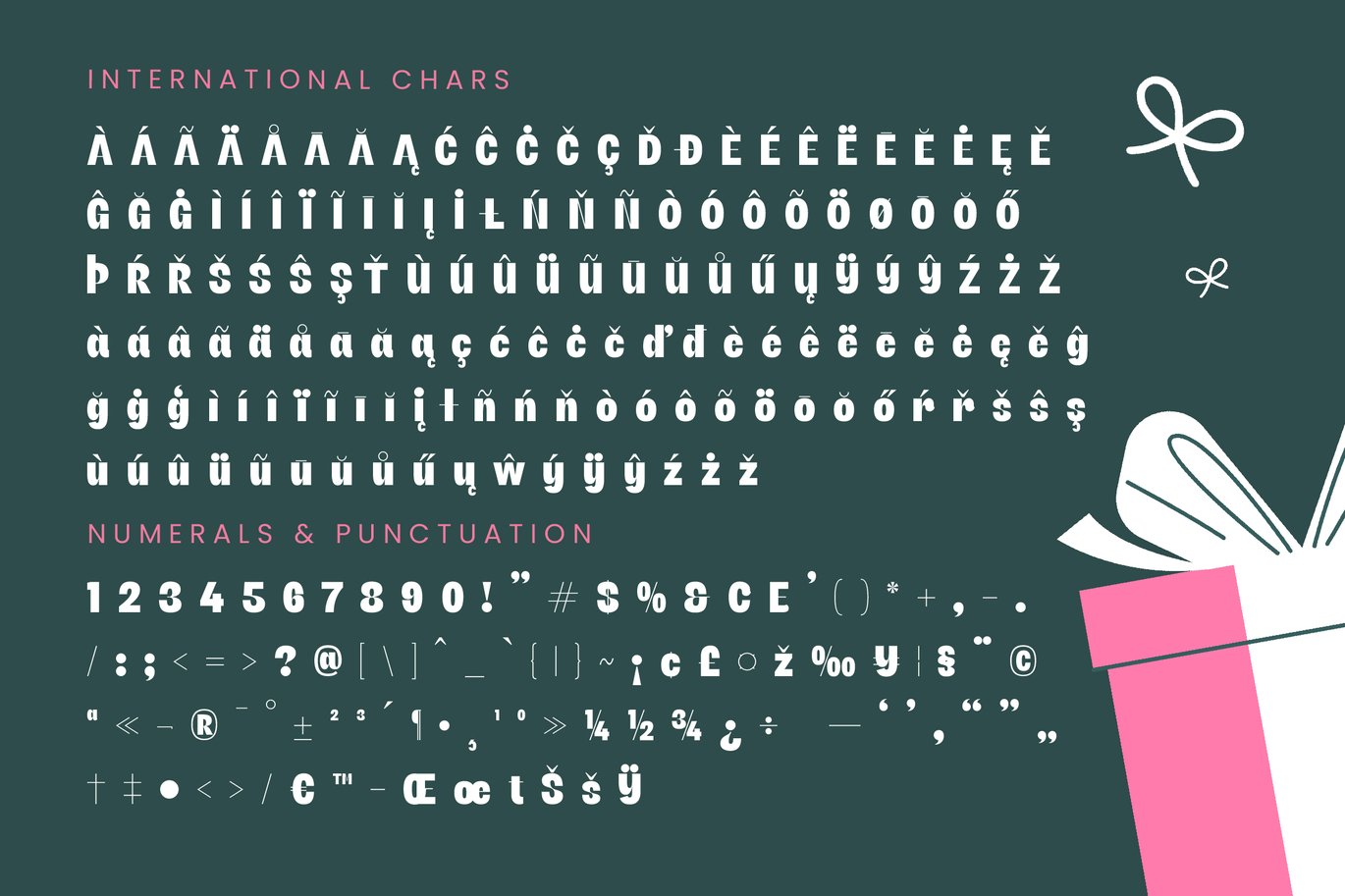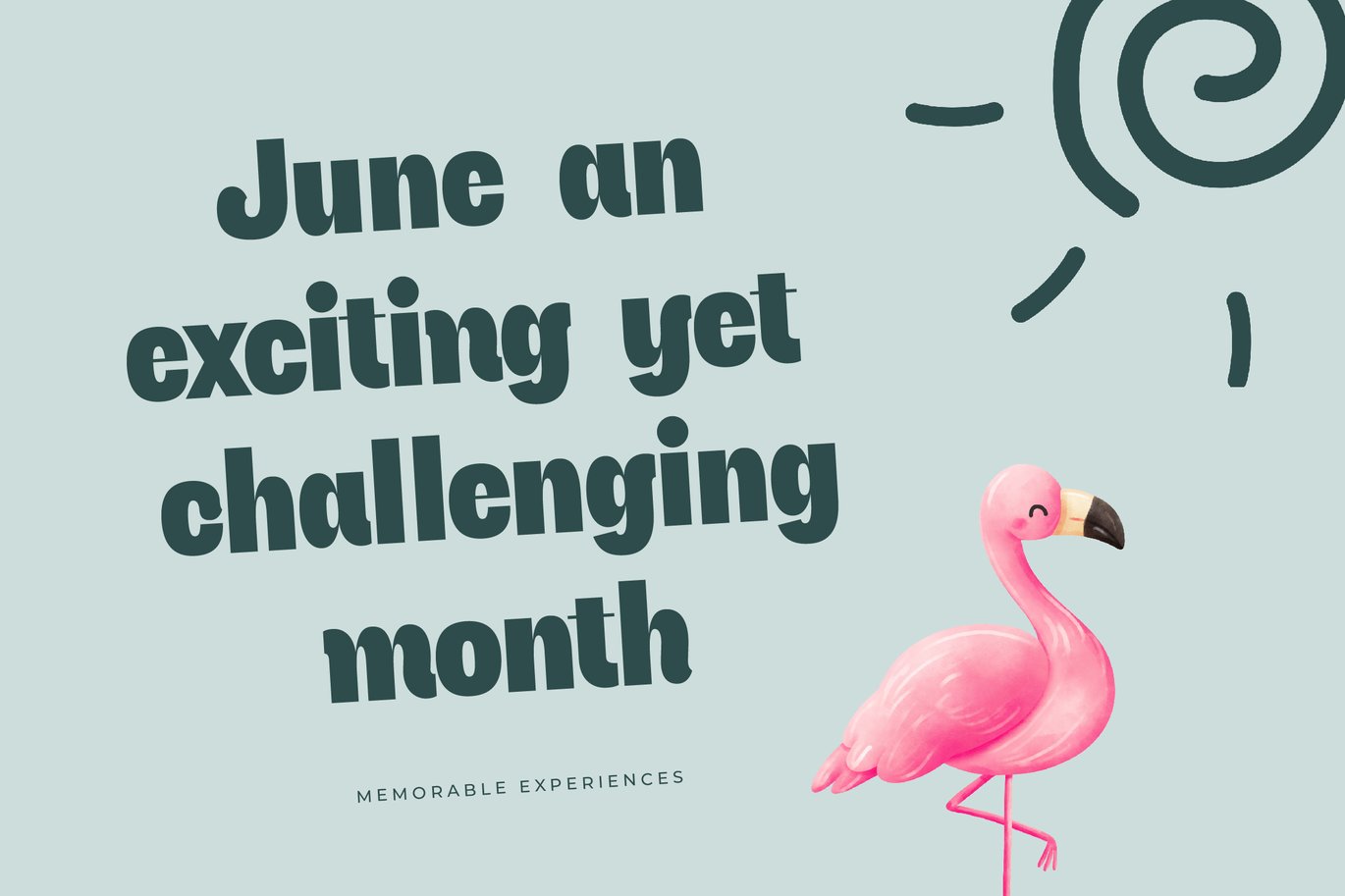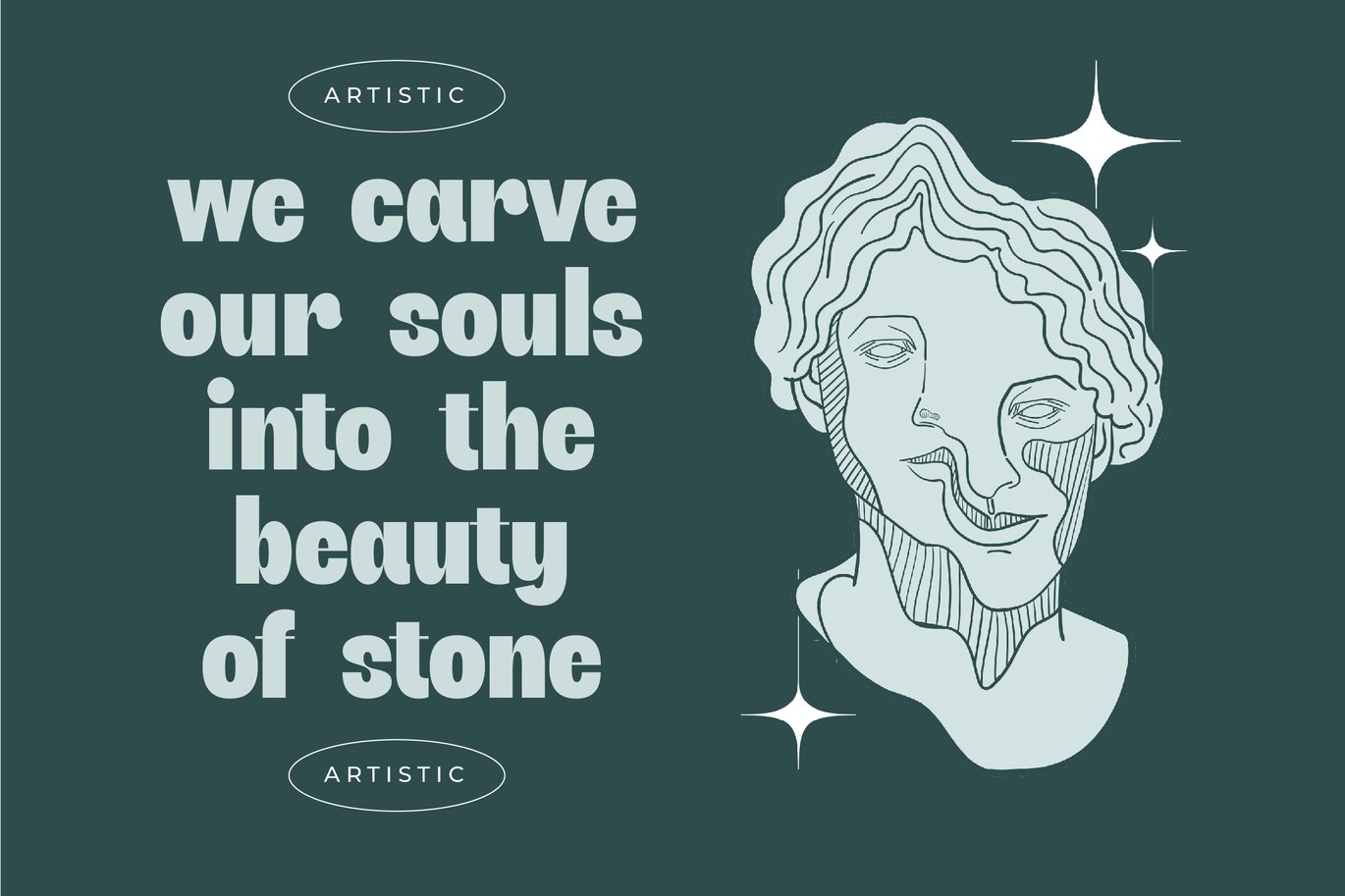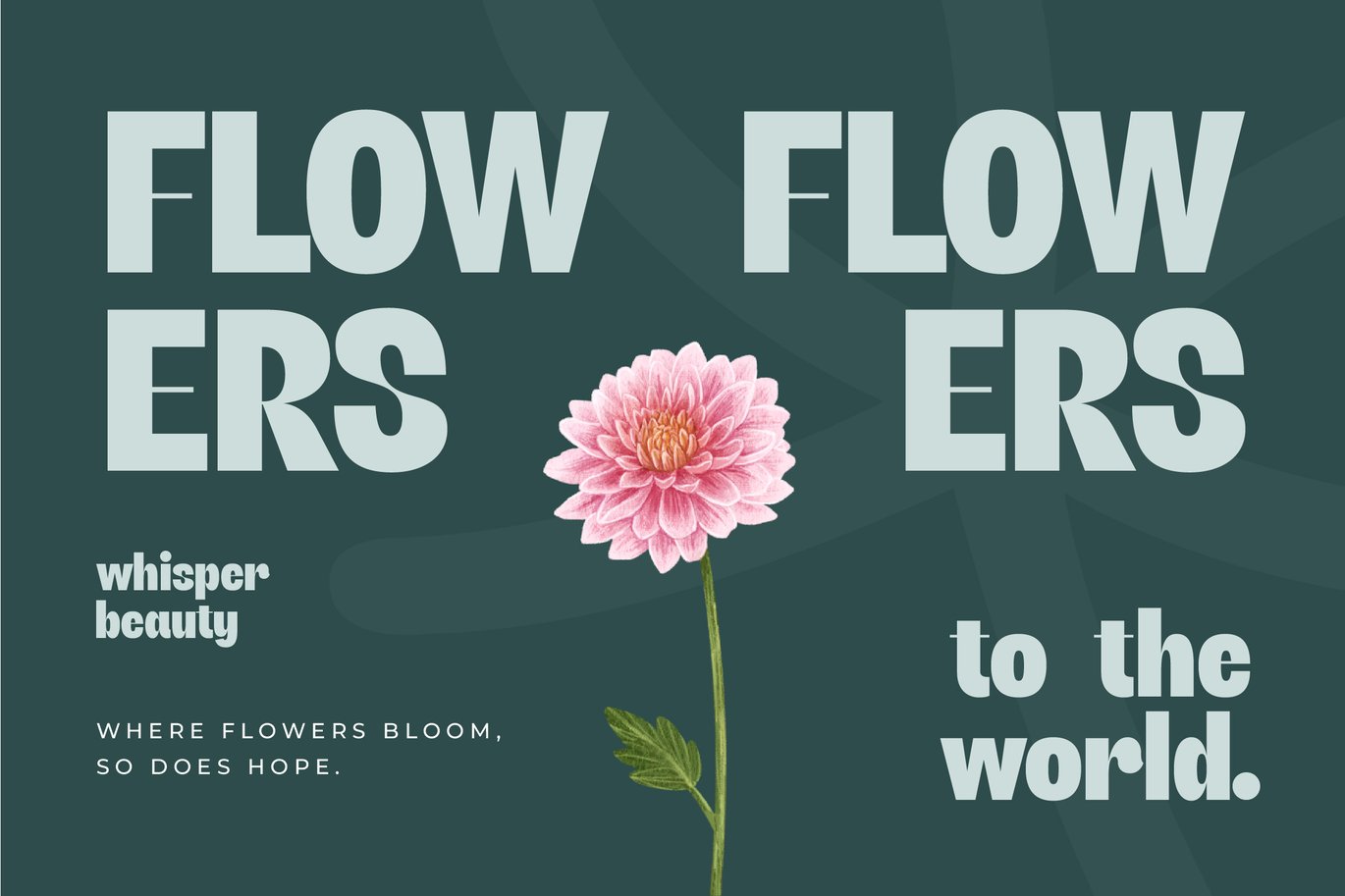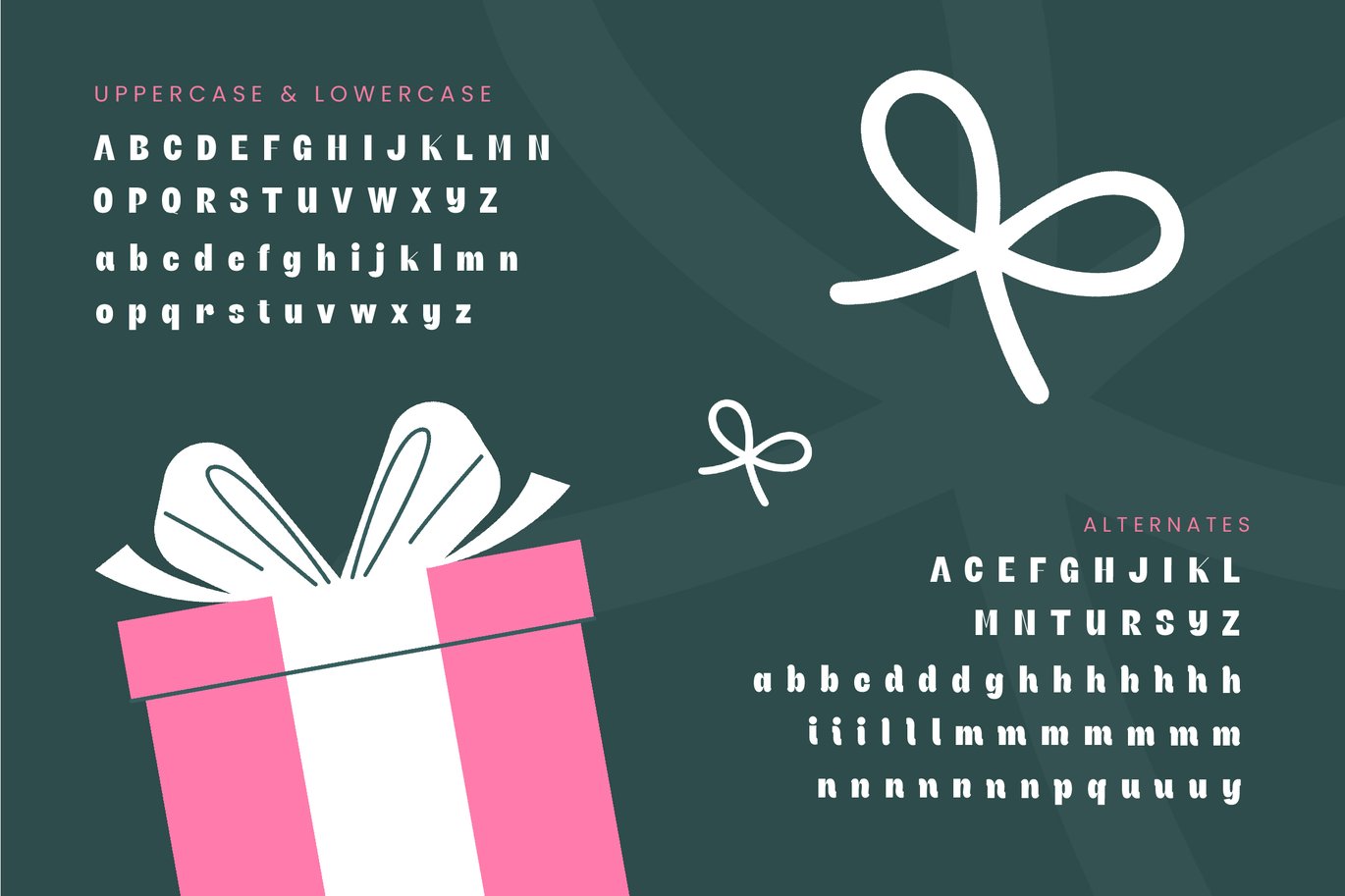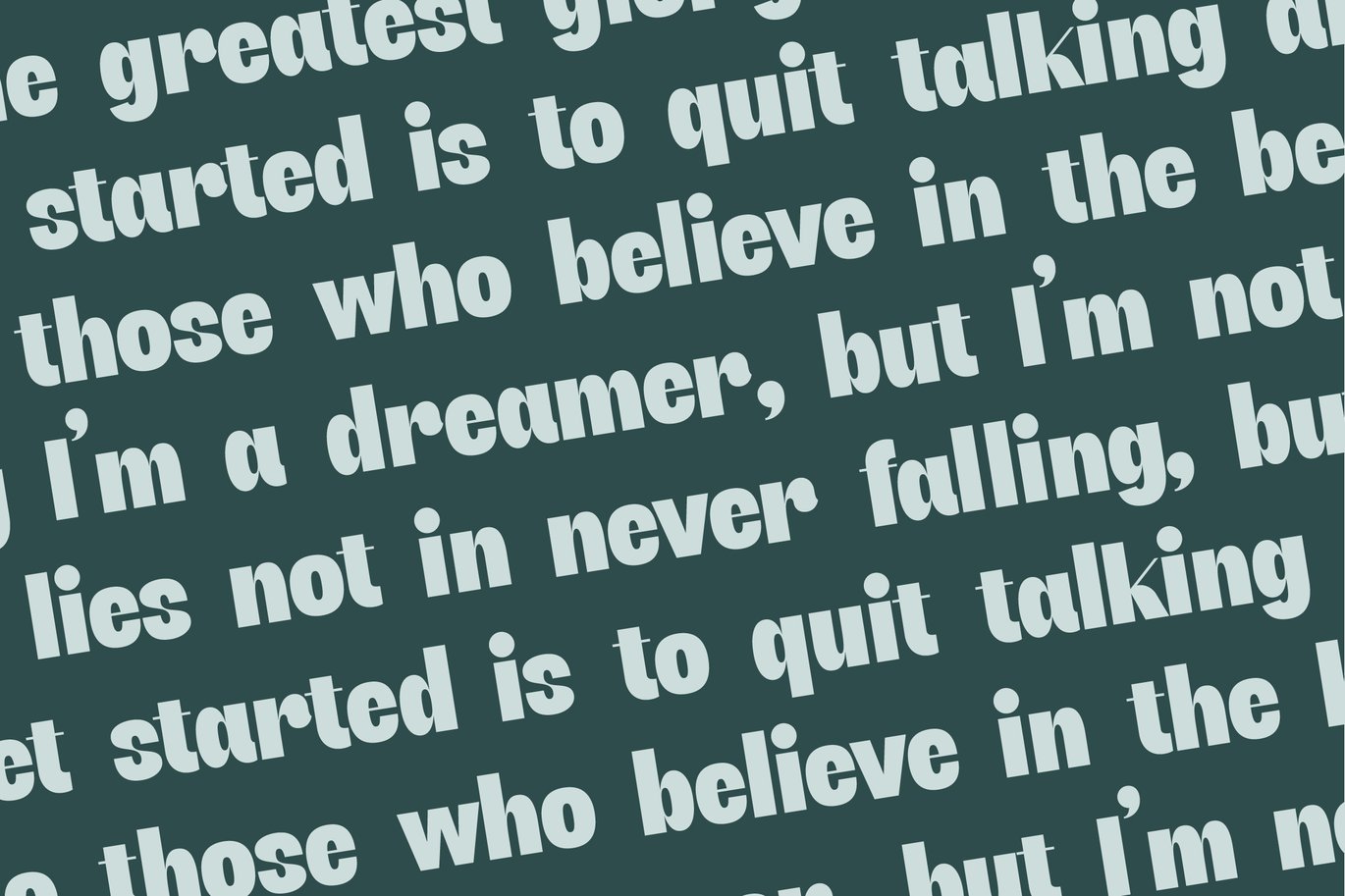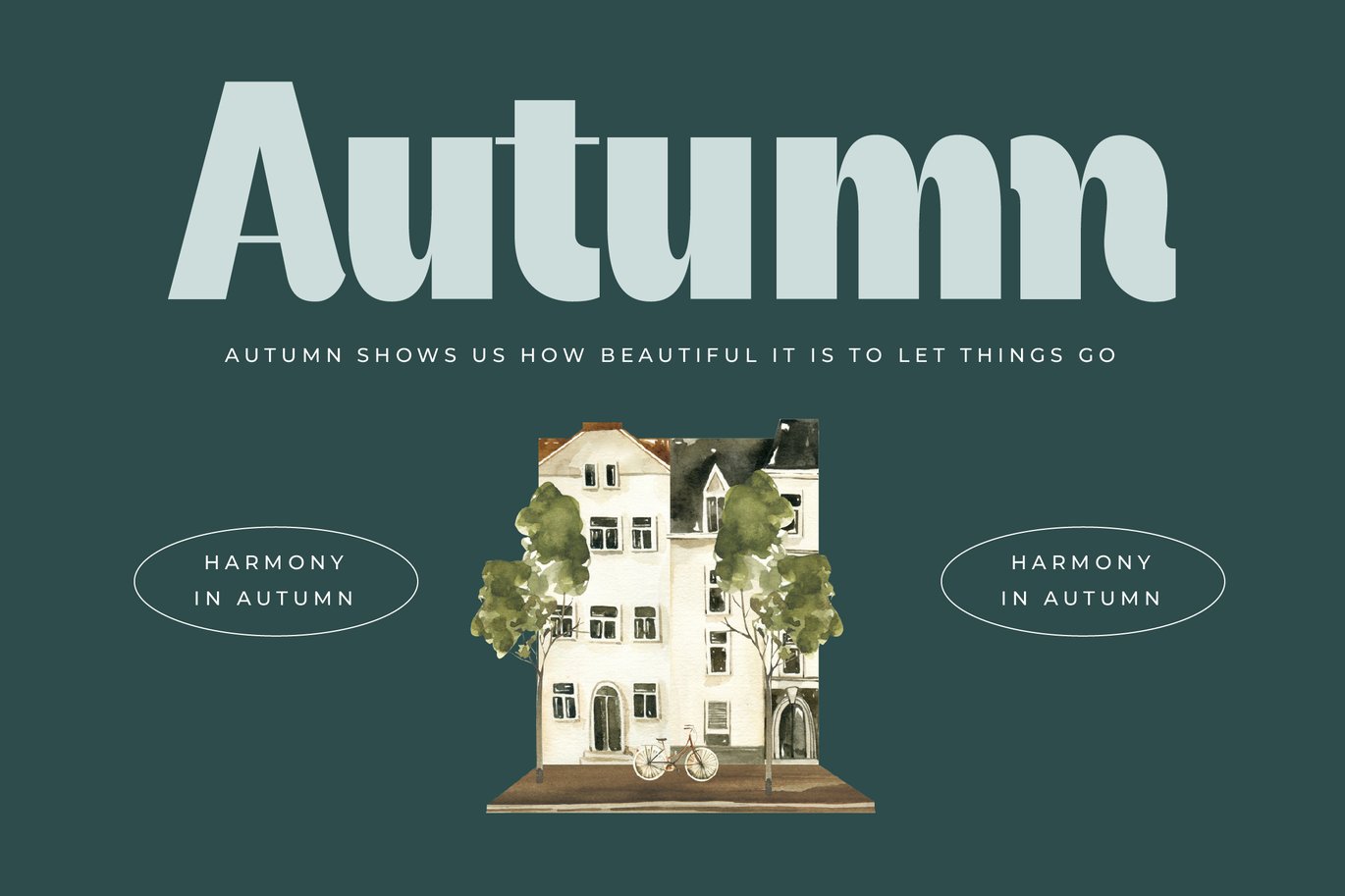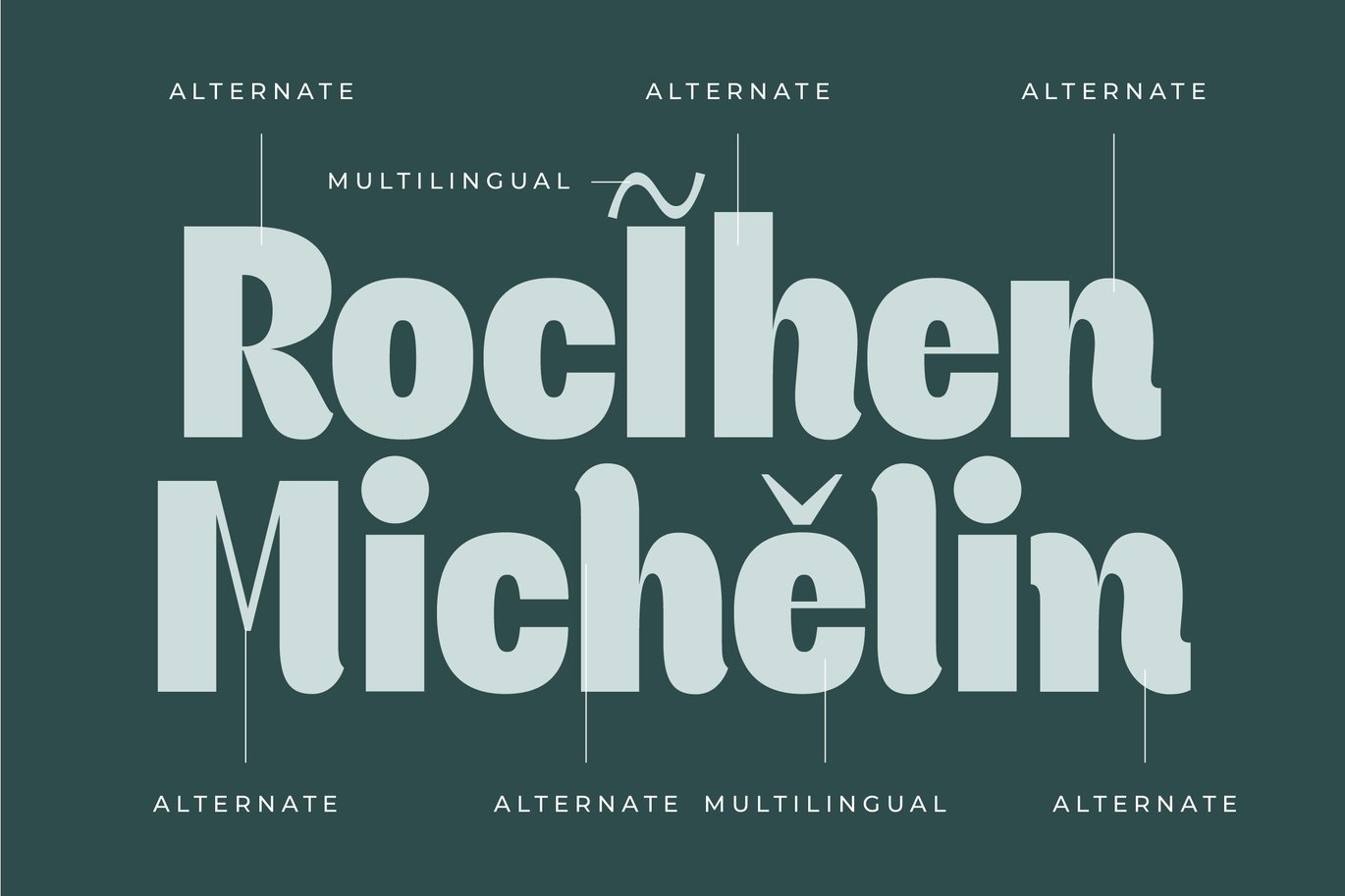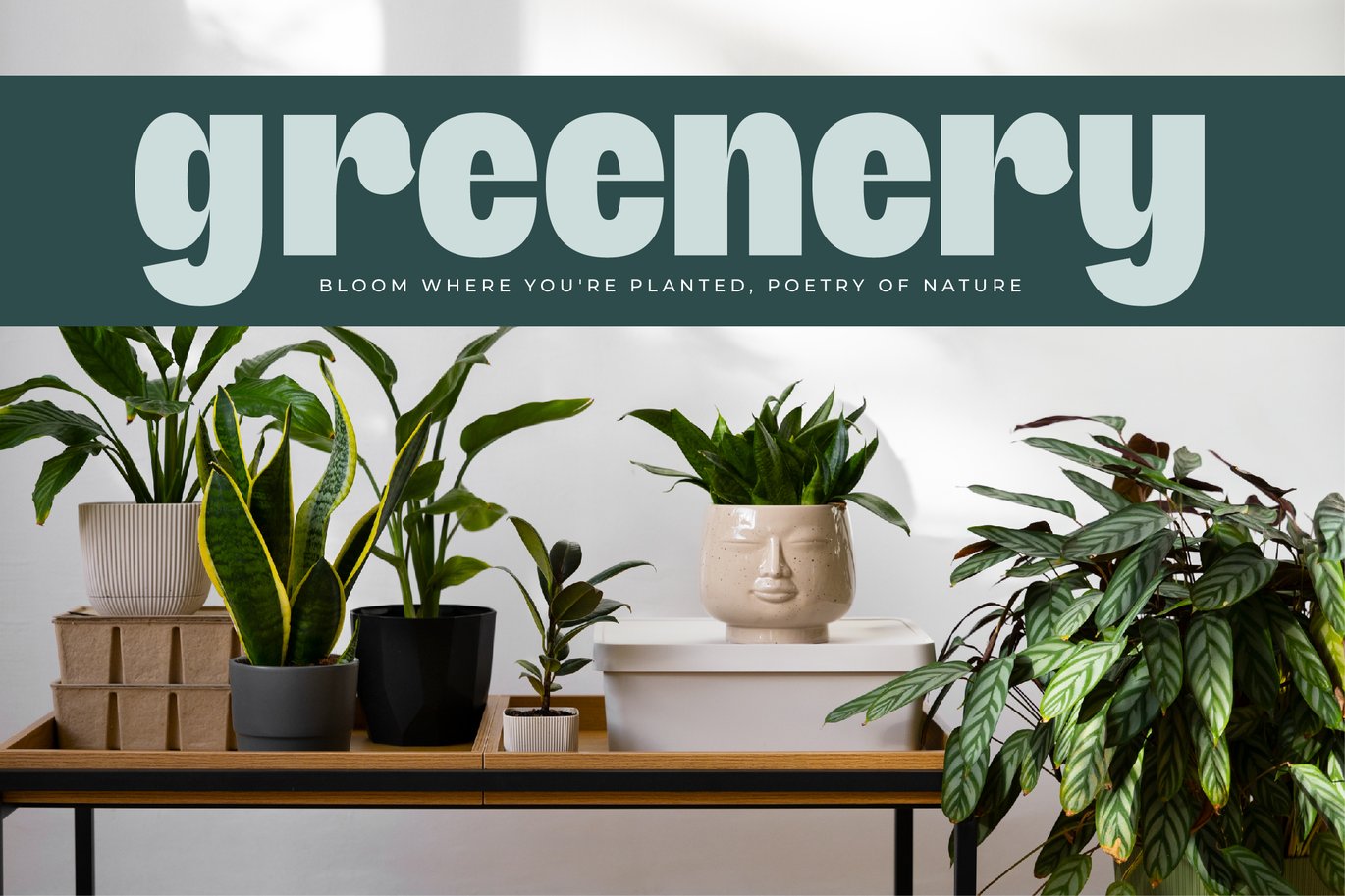
Giftson - Display Serif Font
Giftson is a playful display serif font with soft curves, chunky forms, and a cheerful personality—perfect for children’s themes, cute branding, gift packaging, greeting cards, and creative merchandise. Its friendly shapes and rounded serifs create a warm, joyful feel that makes every design look lively and approachable.
With 72 alternate variations, Giftson gives you endless flexibility to craft fun titles, expressive logos, colorful invitations, sticker designs, and holiday-themed projects. This font is ideal for designers who want a charming, whimsical, and modern look with a touch of handcrafted character.
• Ligature
• Uppercase and lowercase
• Numbering and Punctuation